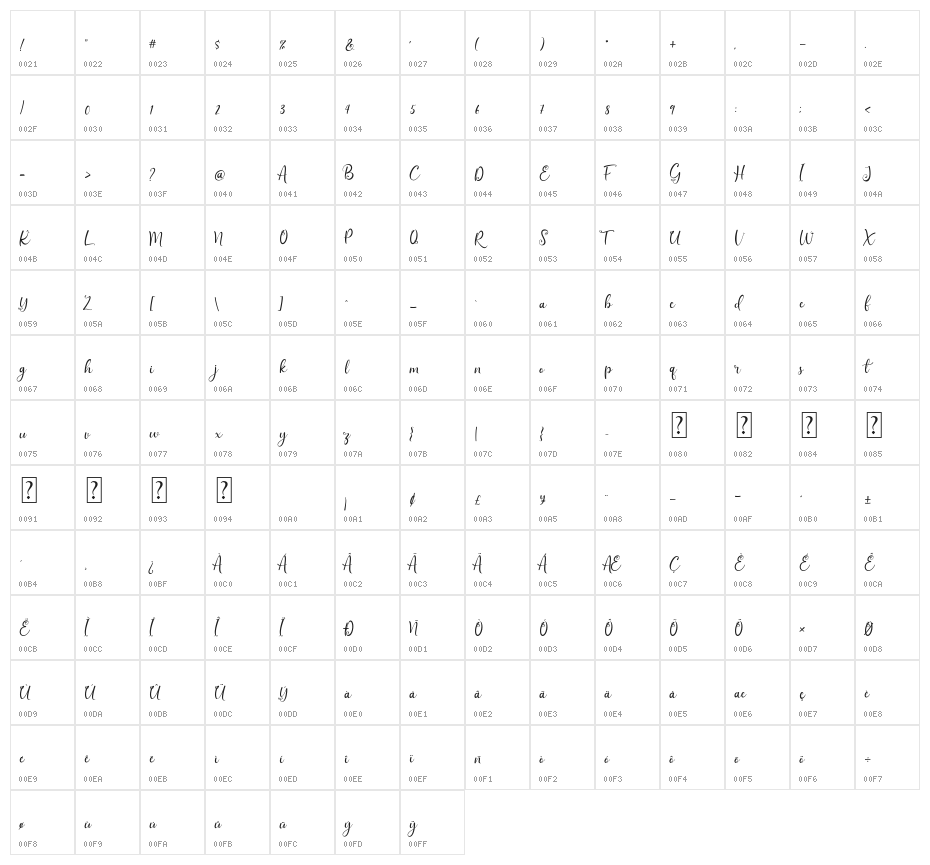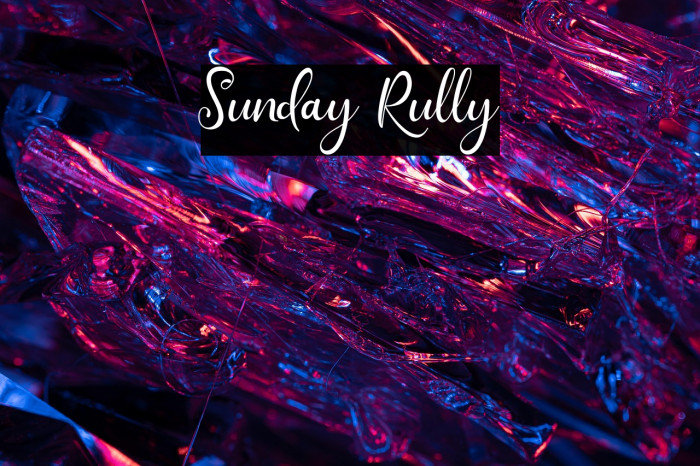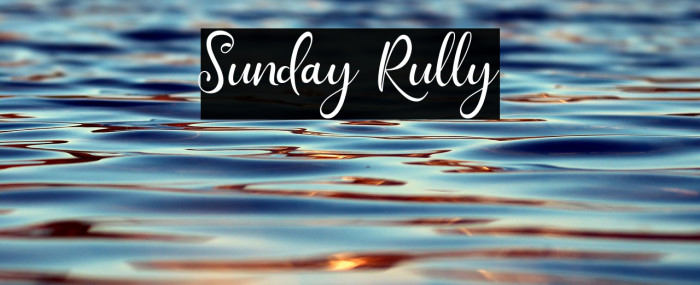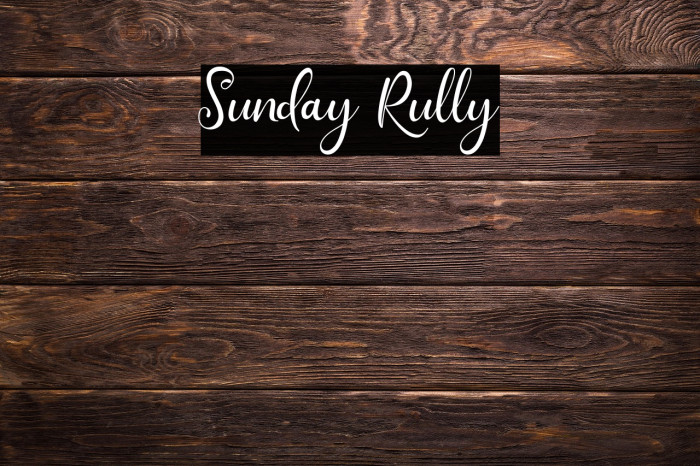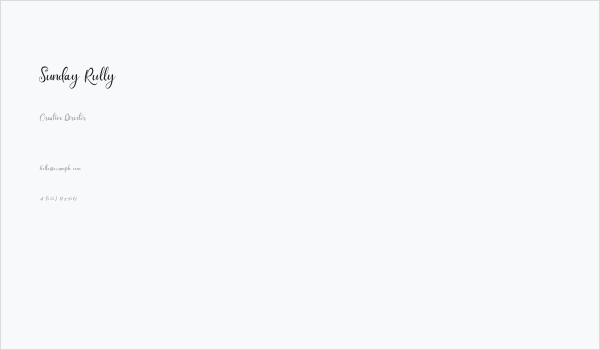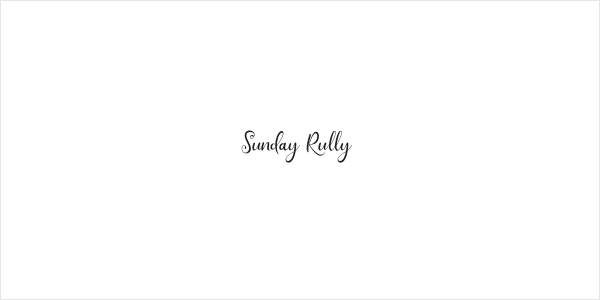
Sunday Rully Font
Sunday Rully Description
This font features an elegant and flowing script style, characterized by its decorative swirls and flourishes that add a touch of sophistication. The uppercase letters are particularly ornate, with intricate loops and curves that give them a distinctive, artistic flair. The lowercase letters maintain a consistent style, offering a smooth and cohesive appearance. The numerals are clear and legible, while the special characters retain the font's decorative essence. This font exudes a sense of elegance and creativity, making it suitable for projects that require a personal and artistic touch.